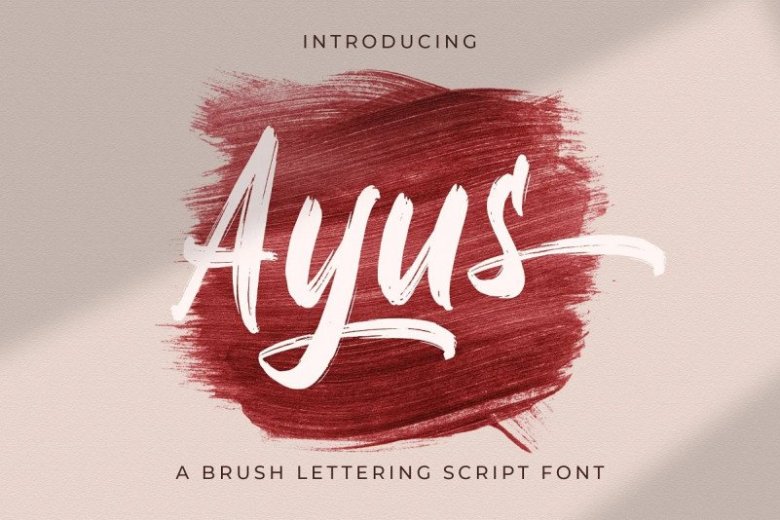
Ayus Font
Ayus Brush Font, designed by StringLabs is a clean store with high contrast line. Created with the help of a brush pen. Get inspired by its unique and beautiful style and add it to your favorite designs!